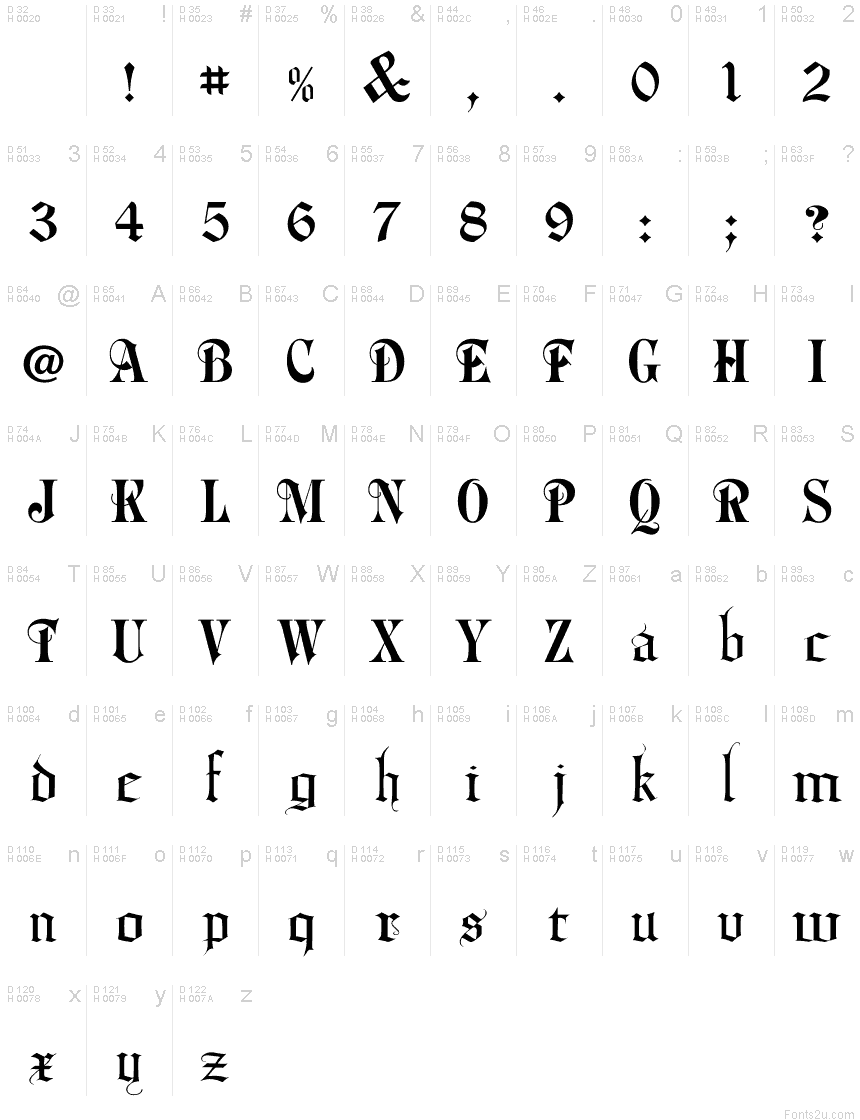
Phalyn
Phalyn is a free blackletter font with a sharp, calligraphic Gothic mood. The letters mix tall spear-like strokes with curled flourishes and pinched joins, giving the font an old-world, ceremonial pull without feeling brittle or overly dense.
It fits poster headlines, book covers, music artwork, packaging, and bar or cafe branding where that medieval edge helps set the tone. As a free font, Phalyn also works for title cards, invitation names, and short wordmarks, because its hooked details and dramatic vertical rhythm carry plenty of character in just a few letters.
Refuge Graphix
Refuge Graphix - Forrest Coe